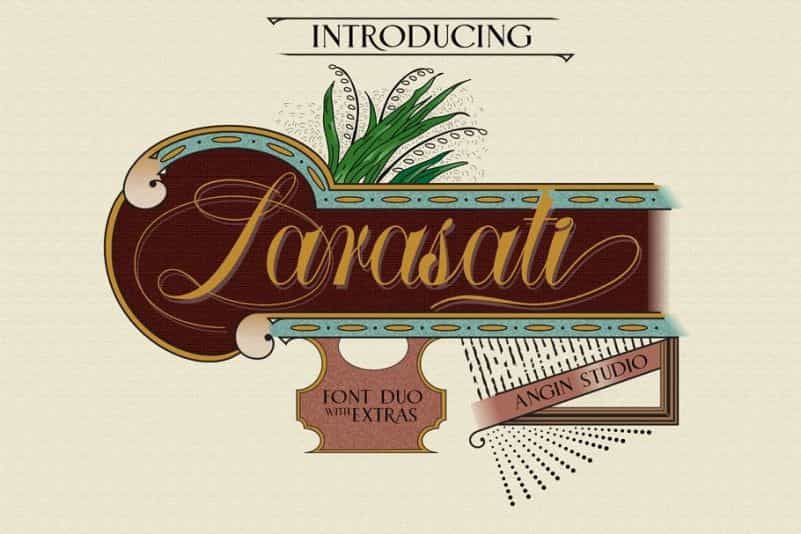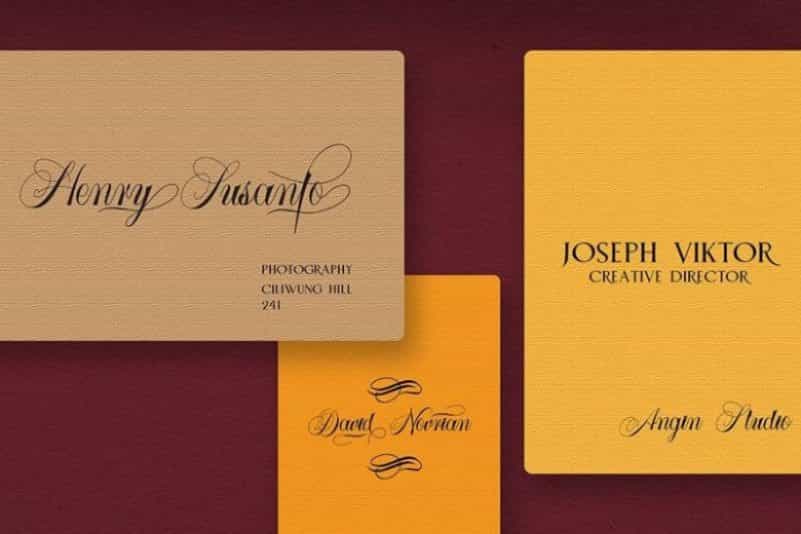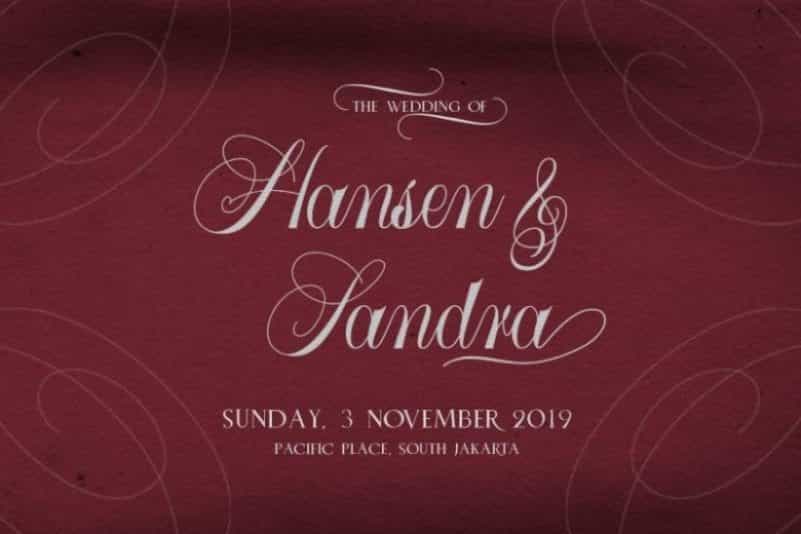
Larasati Font, a work that is entirely made of handwriting, has a nature element. it is ideal for invitations, signatures, blogs, social media, business cards, product brands etc. Larasati has four types of Stylistic namely Stylistic standard, Stylistic Initial, Stylistic Terminal, and ligatures. and consists of letters in capitals and small letters, numbers and other characters such as points.